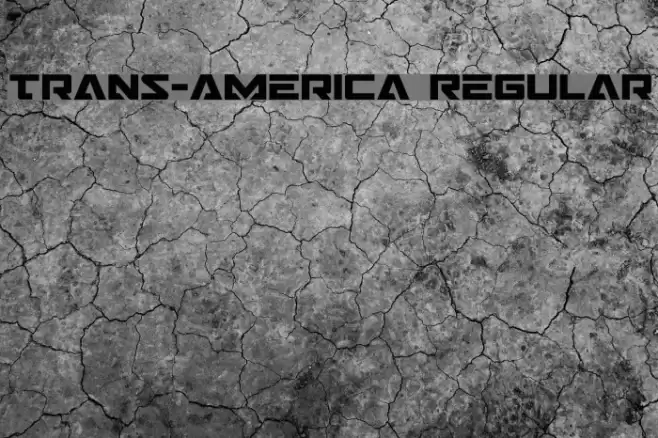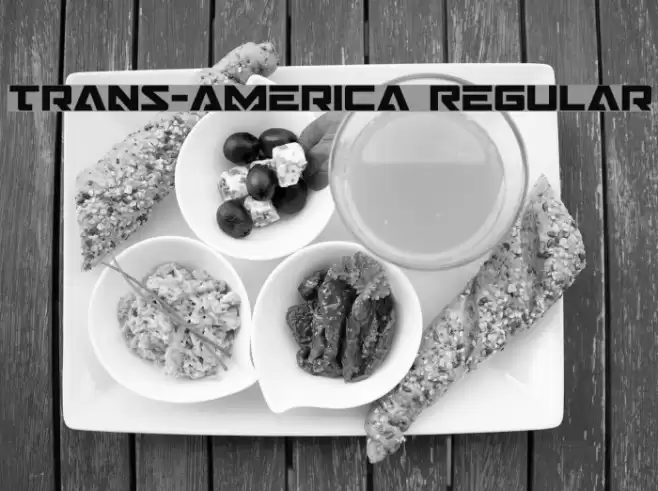
Trans-America Regular Font
Trans-America Regular Description
This font features a bold, geometric design with a futuristic and industrial feel. The characters are constructed with sharp angles and straight lines, giving it a strong and assertive presence. The uppercase letters are particularly striking, with a uniform height and width that create a cohesive look. The lowercase letters maintain the same geometric style, ensuring consistency across the typeface. Numbers and special characters are designed to match the boldness and angularity of the alphabet, making this font suitable for a variety of applications where a modern and impactful appearance is desired.
A bold, geometric font with a futuristic and industrial style from Uncategorized fonts.
- Proposed Projects: Ideal for technology branding, video game titles, sci-fi movie posters, and modern product packaging.